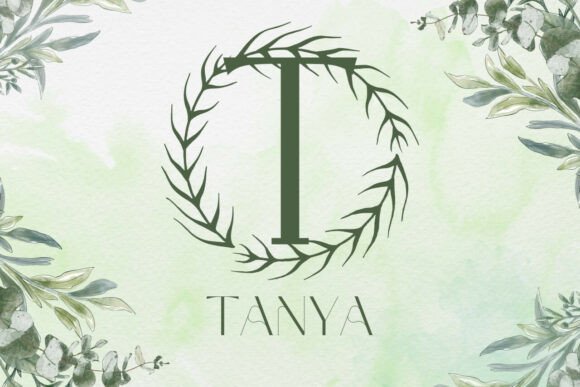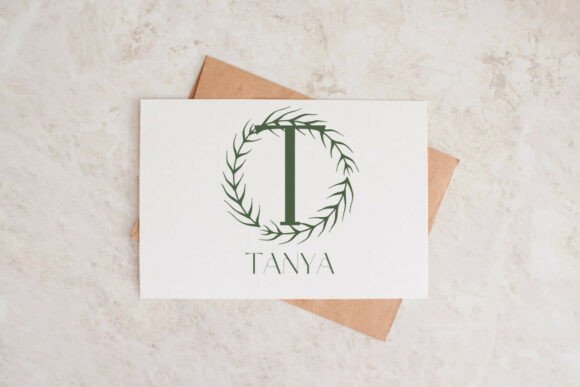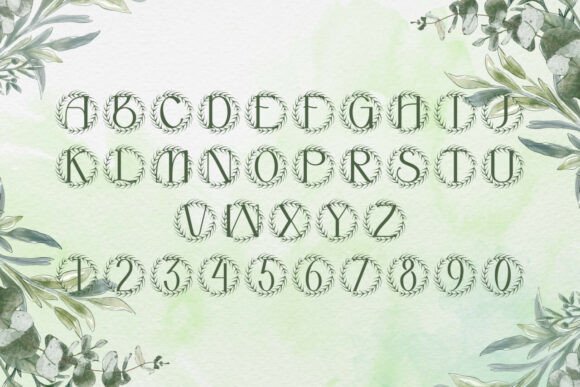
Introduction to Marquessia Monogram Font
Meet Marquessia, the Monogram Font Marquessia Monogram Font turns simple initials into poised, heirloom-ready emblems.
Lines are smooth and confident, with generous counters that keep tiny tags readable and thumbnails crisp Use it for wedding suites, boutique logos, keepsake gifts, wax seals, and premium packaging.
Key Features of Marquessia Monogram Font
Why Choose Marquessia Monogram Font?
Marquessia Monogram Font offers exceptional quality and versatility, making it a valuable addition to your design toolkit. Whether you’re creating for personal projects or commercial use, Marquessia Monogram Font delivers professional results.